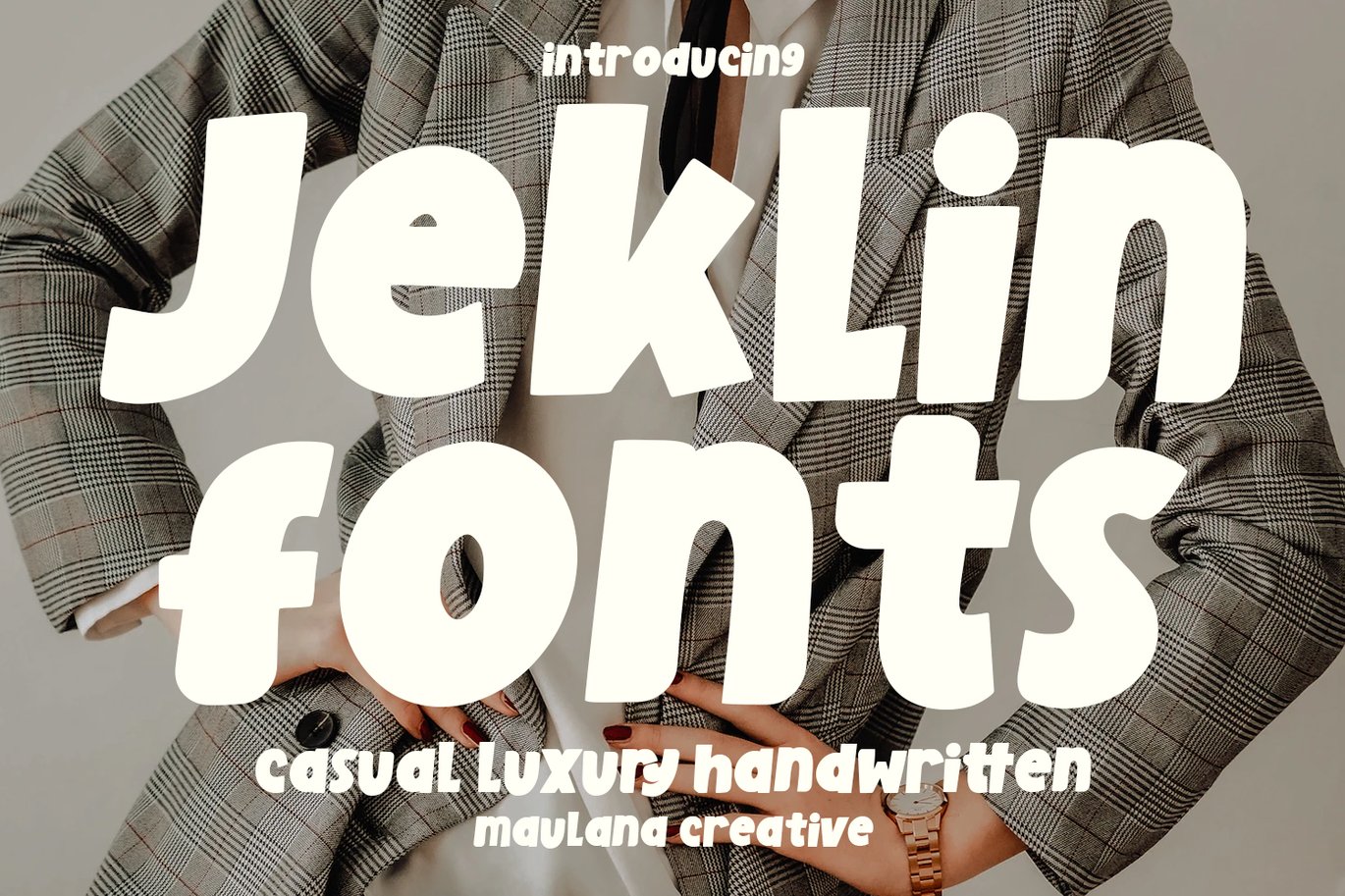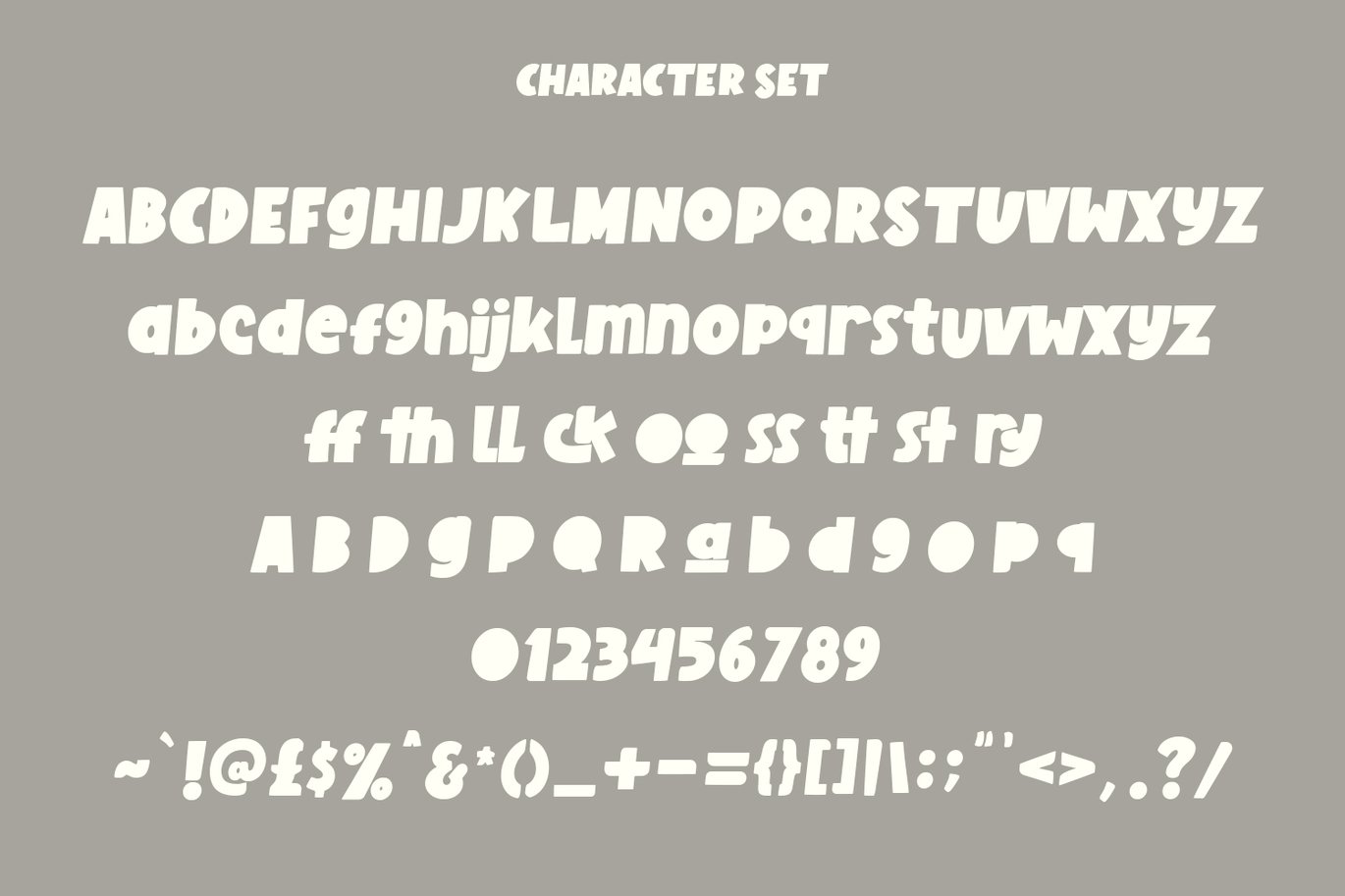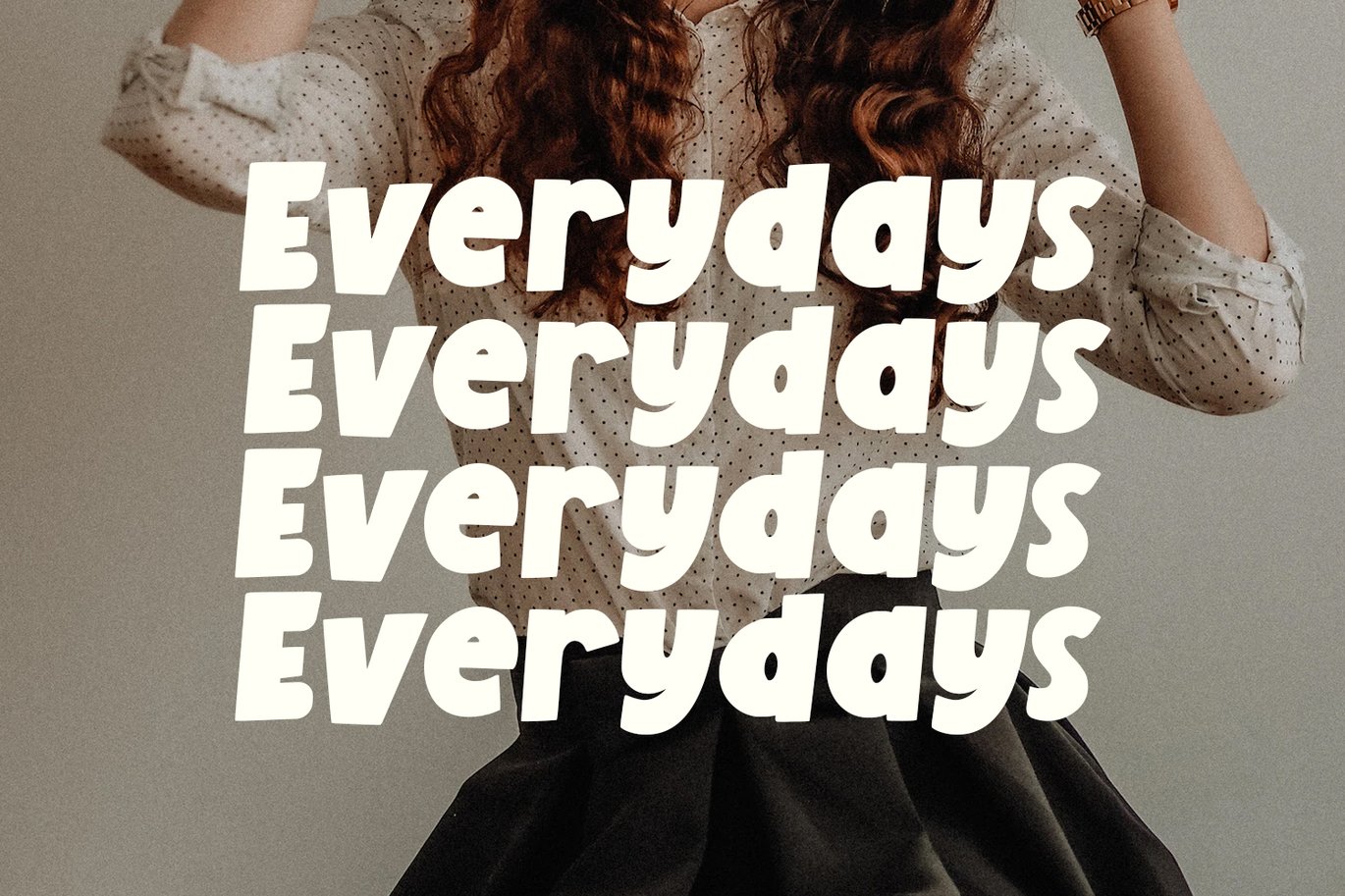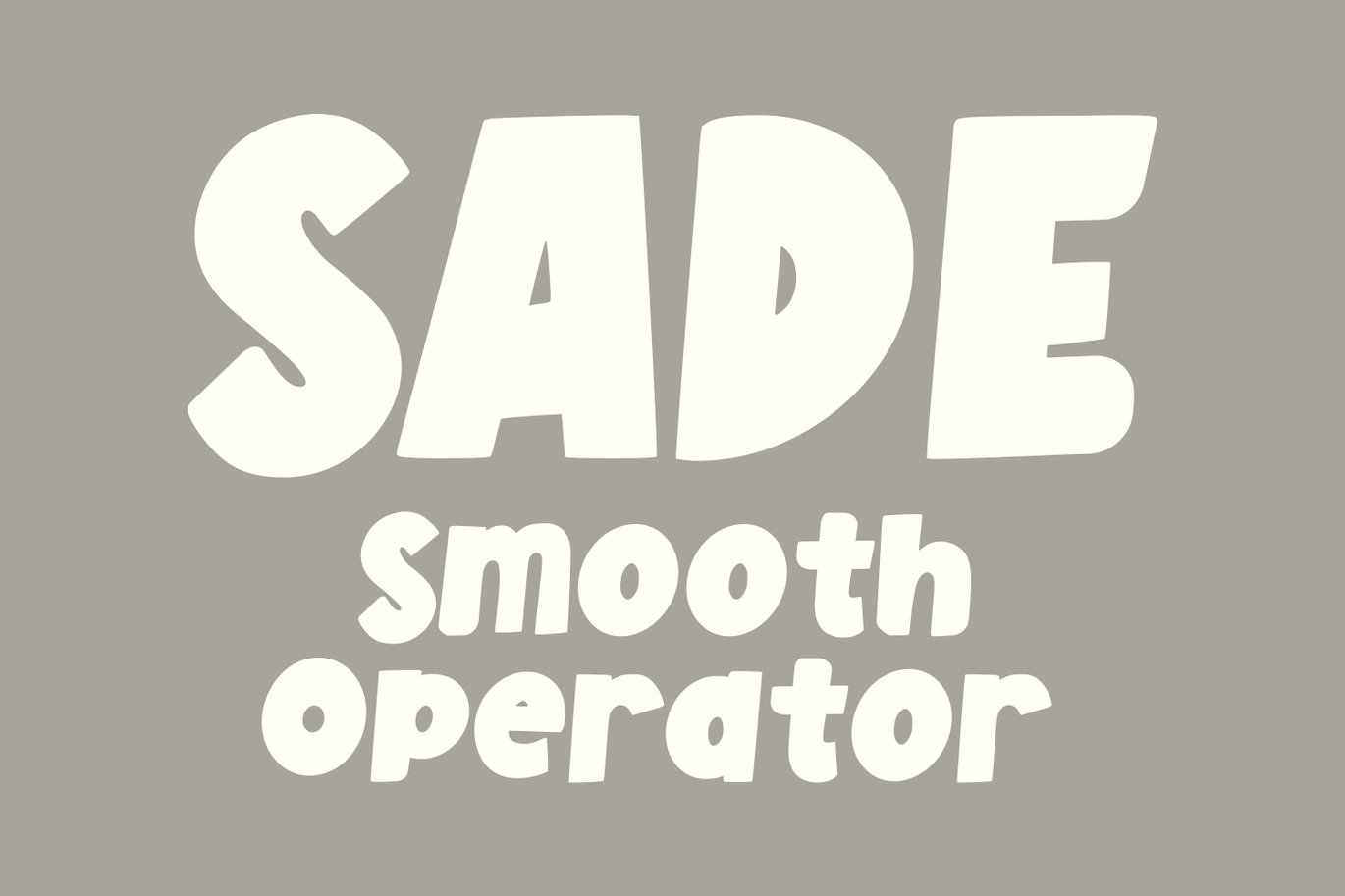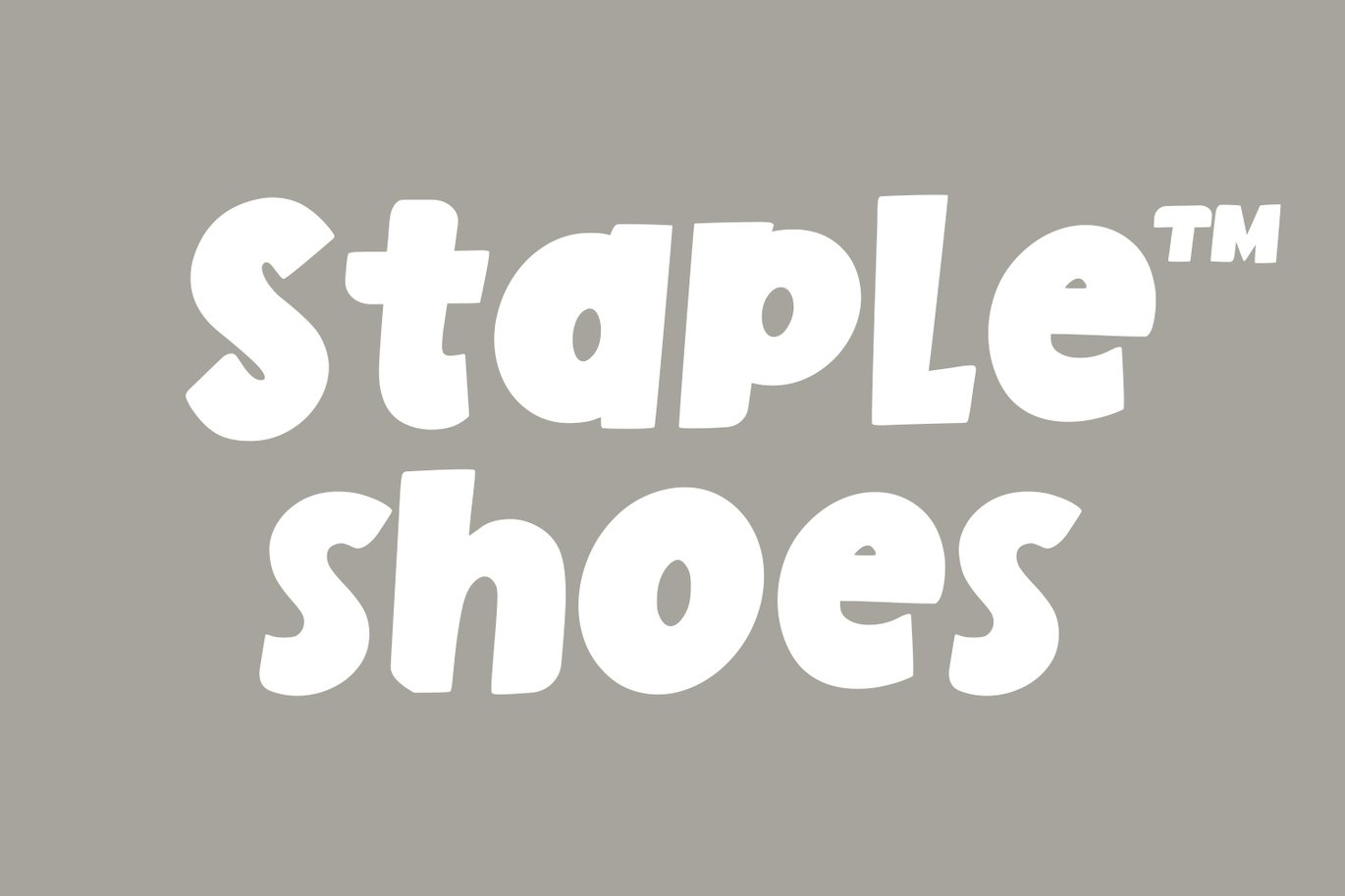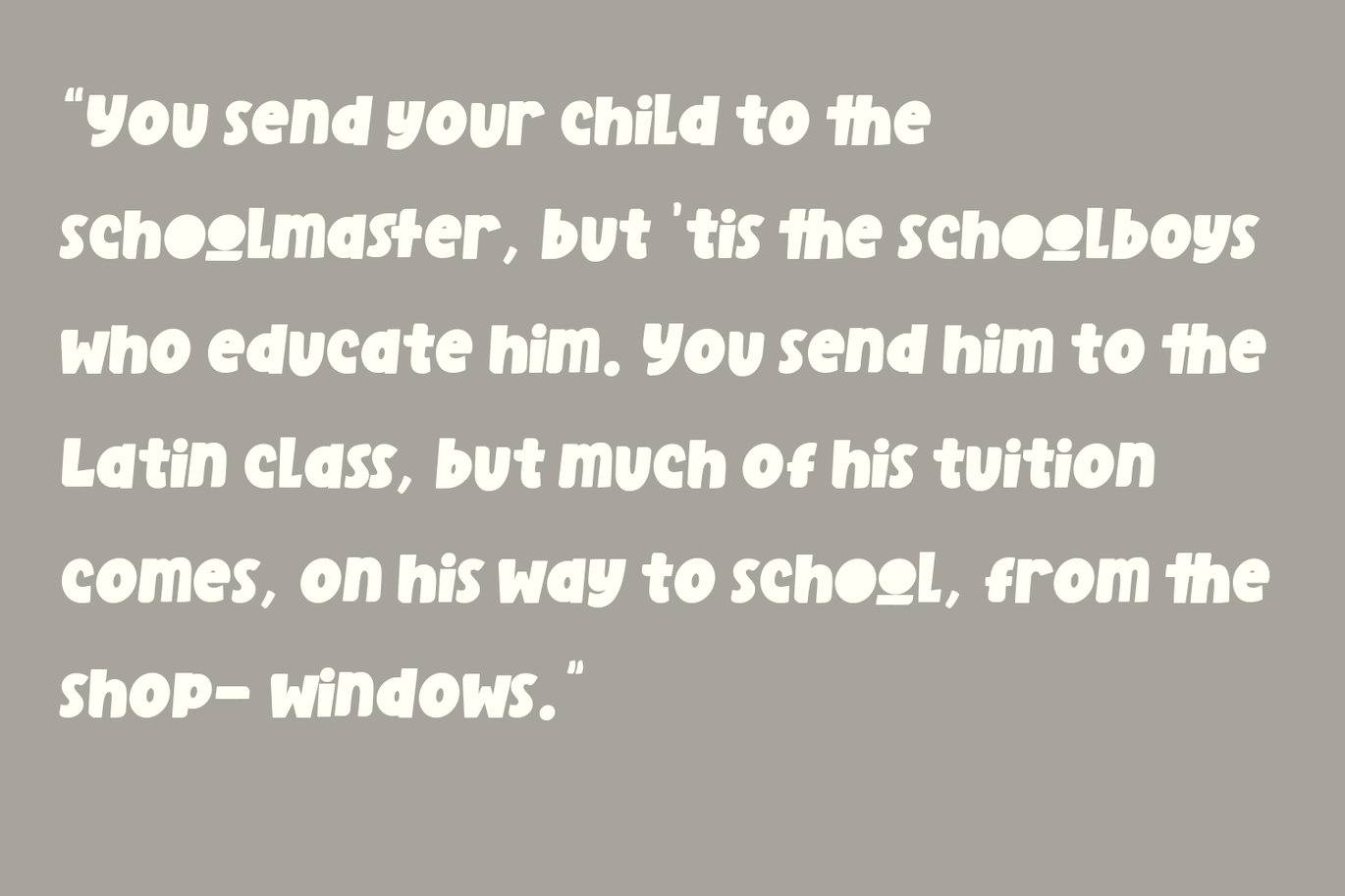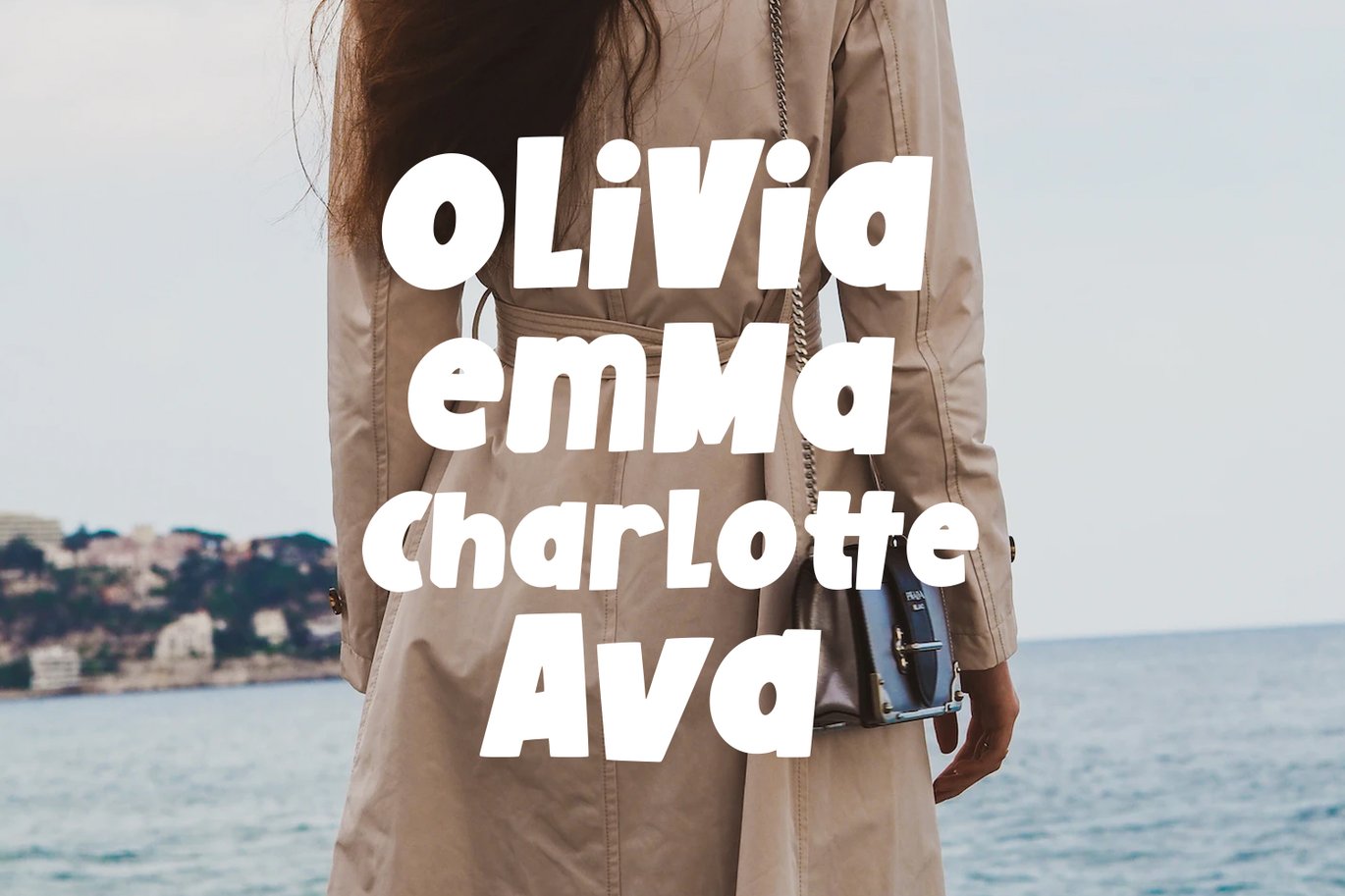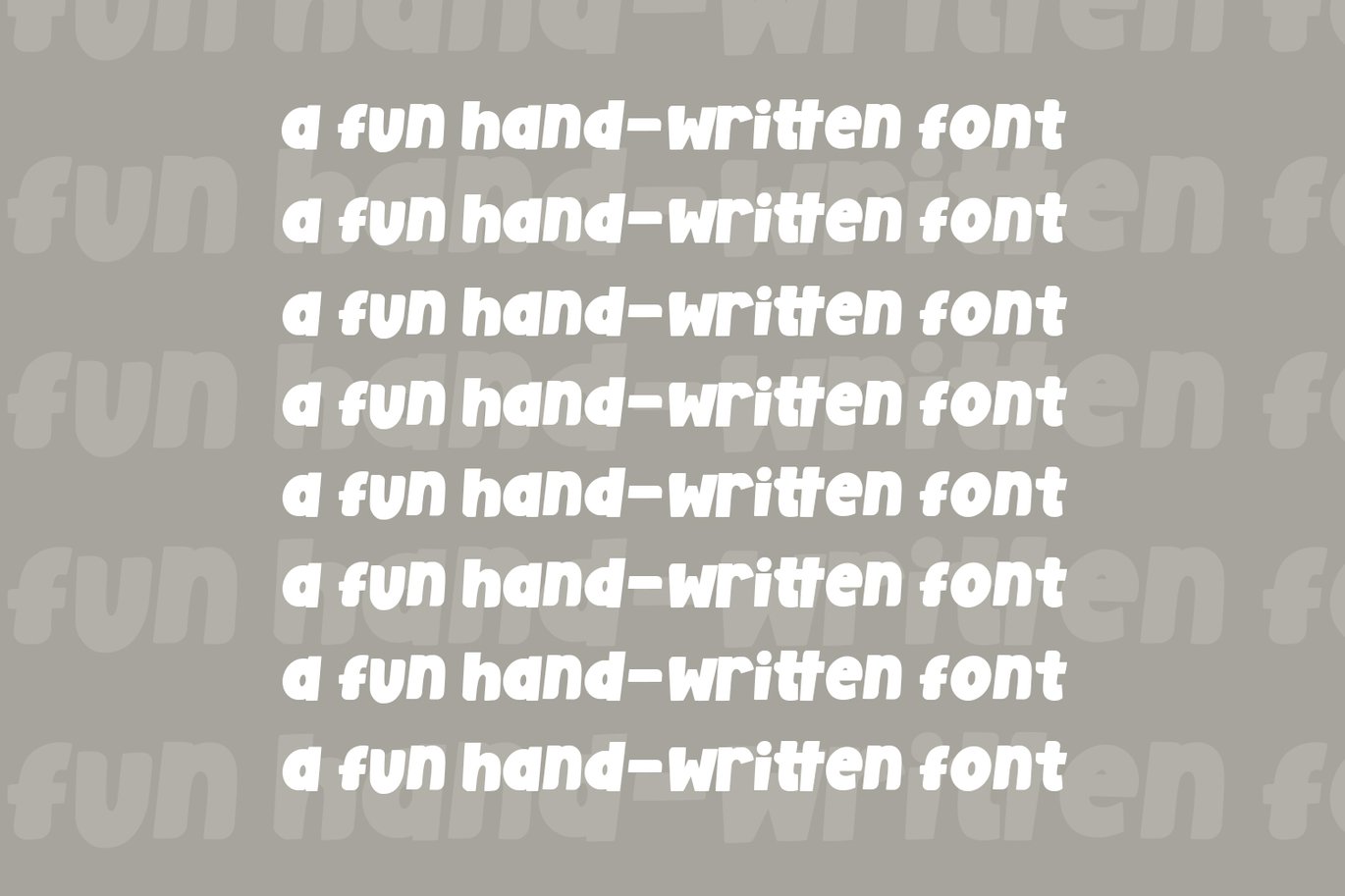
Jeklin Casual Luxury Font
Jeklin is a cute handwritten sans font. With bold stroke, fun character with a bit of ligatures and alternates. To give you an extra creative work. Jeklin font support multilingual more than 100+ language. This font is good for logo design, Social media, Movie Titles, Books Titles, a short text even a long text letter and good for your secondary text font with sans or serif. Make a stunning work with Jeklin font.